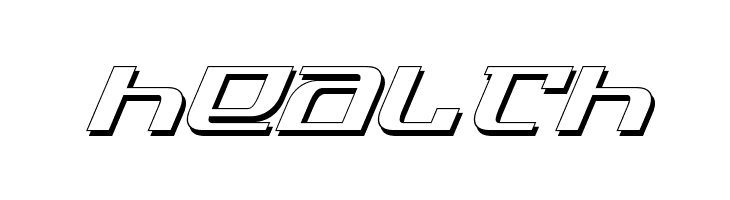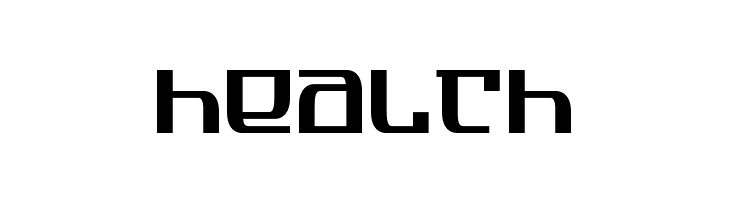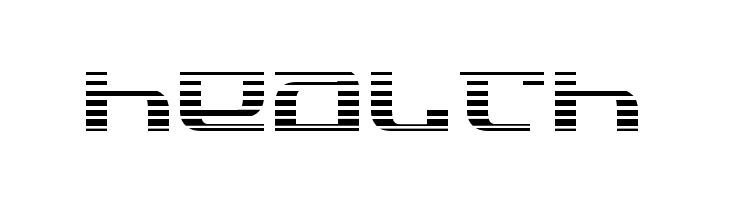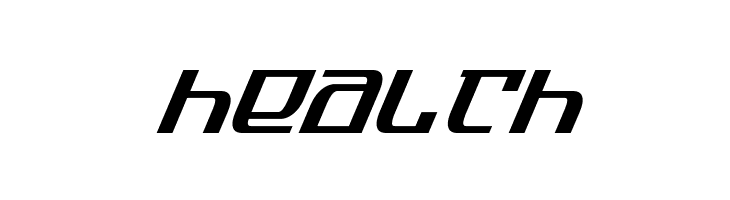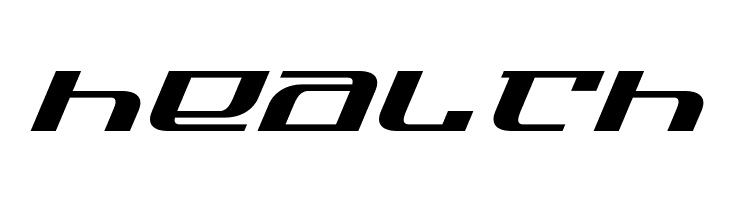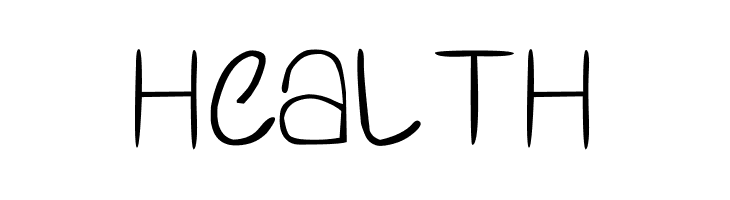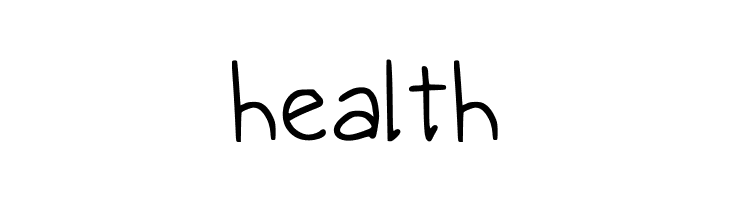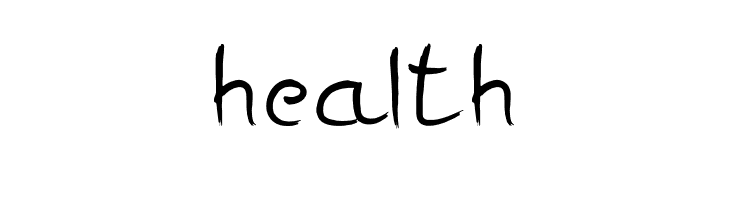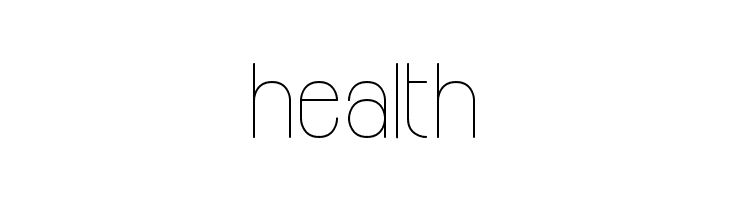
Infinity Font
A playful, hand-drawn font with irregular strokes and a whimsical style.
Beyond Infinity Font
A fluid, elegant handwritten font with smooth, flowing lines.
Infinite Justice Font
A bold, italicized font with a dynamic and modern style.
InfiniteStroke Font
A cursive, handwritten font with elegant, flowing strokes.
InfiniteStroke-Bolder Font
A bold, elegant script font with fluid, continuous strokes.
Tattoo Ink Font
A bold, decorative font with a stencil-like, industrial design.
InfiniteStroke-CondensedBolder Font
A bold, condensed script font with high contrast and elegant flourishes.
InfiniteStroke-Condensed Font
A cursive, flowing script font with elegant, interconnected strokes.
Infinium Guardian Font
A bold, futuristic font with geometric and angular design.
Blaster Infinite Font
A bold, futuristic font with geometric, rounded characters.
Isabel Font
A geometric, art deco-inspired font with tall, narrow letterforms and sharp angles.
Blaster Infinite Italic Font
Stella Font
A modern, geometric font with clean lines and rounded edges.
Infinite Justice Straight Font
A bold, geometric font with strong, angular lines and a modern, assertive style.
radiance Font
A sleek, modern font with thin, geometric lines and minimalistic design.
aura Font
A modern, decorative font with a striped, textured design.
Infinita Font
A sleek, minimalist font with thin, uniform lines and a modern, geometric design.
Humana Font